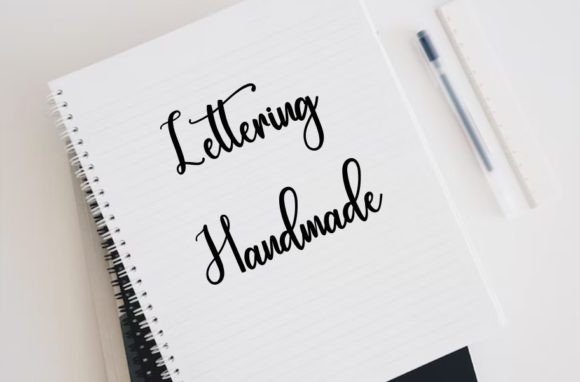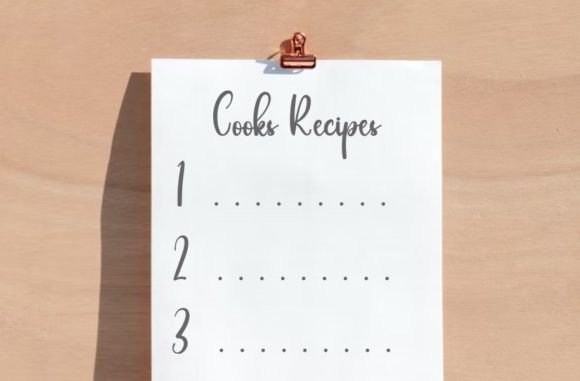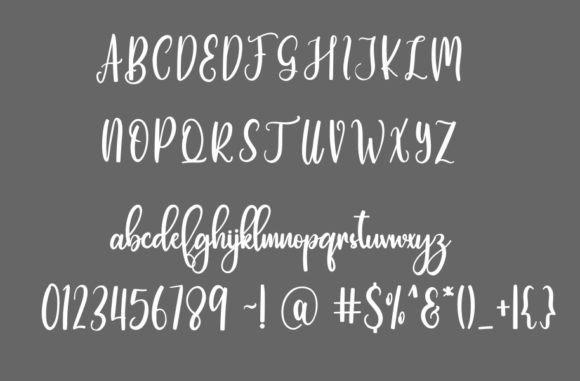
Notebook Planner Font
About Notebook Planner Font
Notebook Planner Font is a delicate and thoughtfully crafted handwritten typeface designed to bring a cool and simple look to your projects. Its clean and minimal style makes it perfect for a variety of uses, such as writing letters, invitations, food product packaging, titles, and other creative works. Notebook Planner adds a subtle and personal touch that enhances your designs with understated elegance.
Simple and Elegant Design
This font features neat, flowing letterforms that offer clarity and style without overwhelming your design. Notebook Planner balances simplicity with a handwritten charm, making it suitable for both formal and casual projects. Its delicate strokes give a friendly and approachable feel to any text.
Ideal Uses for Notebook Planner Font
Notebook Planner works well in a wide range of design contexts, including:
• Personal letters and notes
• Wedding and event invitations
• Food product labels and packaging
• Titles and headlines
• Journals, planners, and scrapbooking
Its minimalist yet elegant style adapts to many creative ideas.
Why Choose Notebook Planner Font?
Designers choose Notebook Planner because it offers:
• Delicate and clean handwritten letterforms
• Simple yet stylish appearance
• Versatility for both print and digital media
These features make Notebook Planner a practical and elegant choice.
Add a Personal Touch to Your Designs
Typography influences the overall feel of your project. Notebook Planner adds a warm, personal, and stylish touch. Whether used for invitations, packaging, or everyday notes, this font helps communicate sincerity and simplicity.
In summary, Notebook Planner Font is a delicate and simple handwritten script that enhances a variety of design projects. Its clean style is perfect for letters, invitations, food packaging, and more. Add Notebook Planner to your font collection to bring subtle elegance and warmth to your creative work.